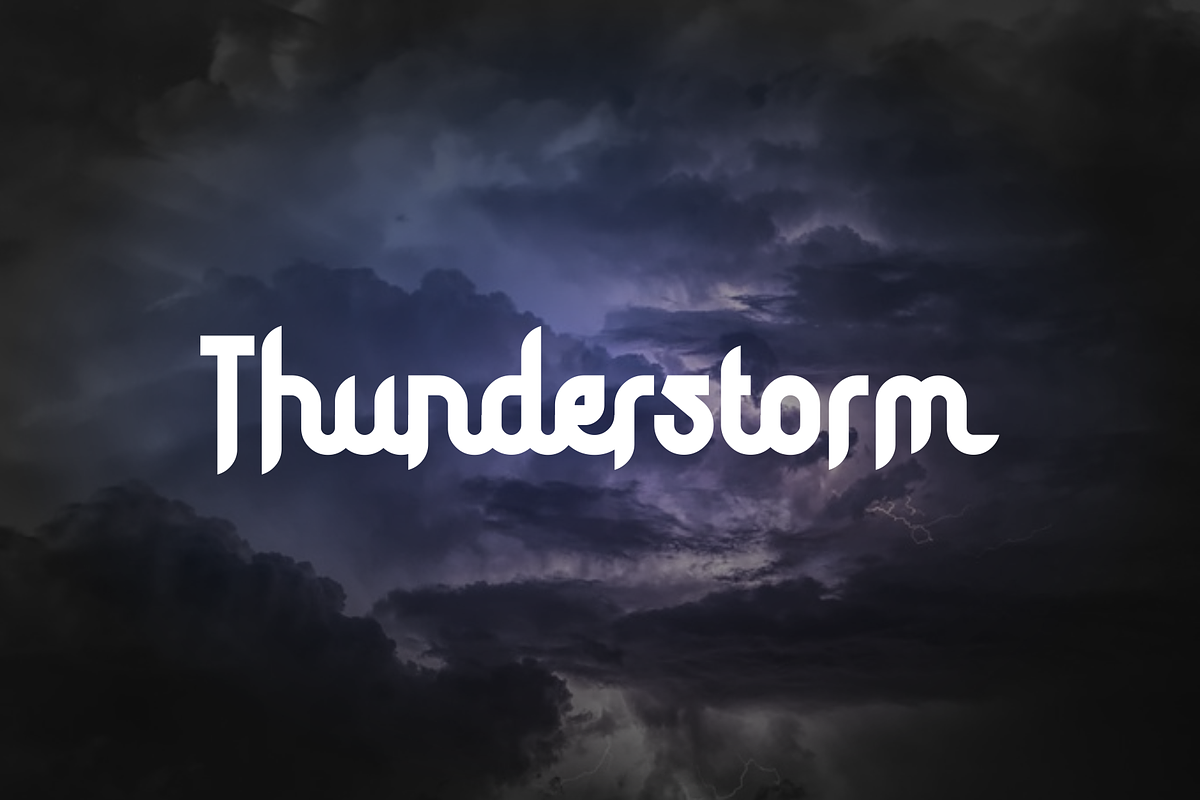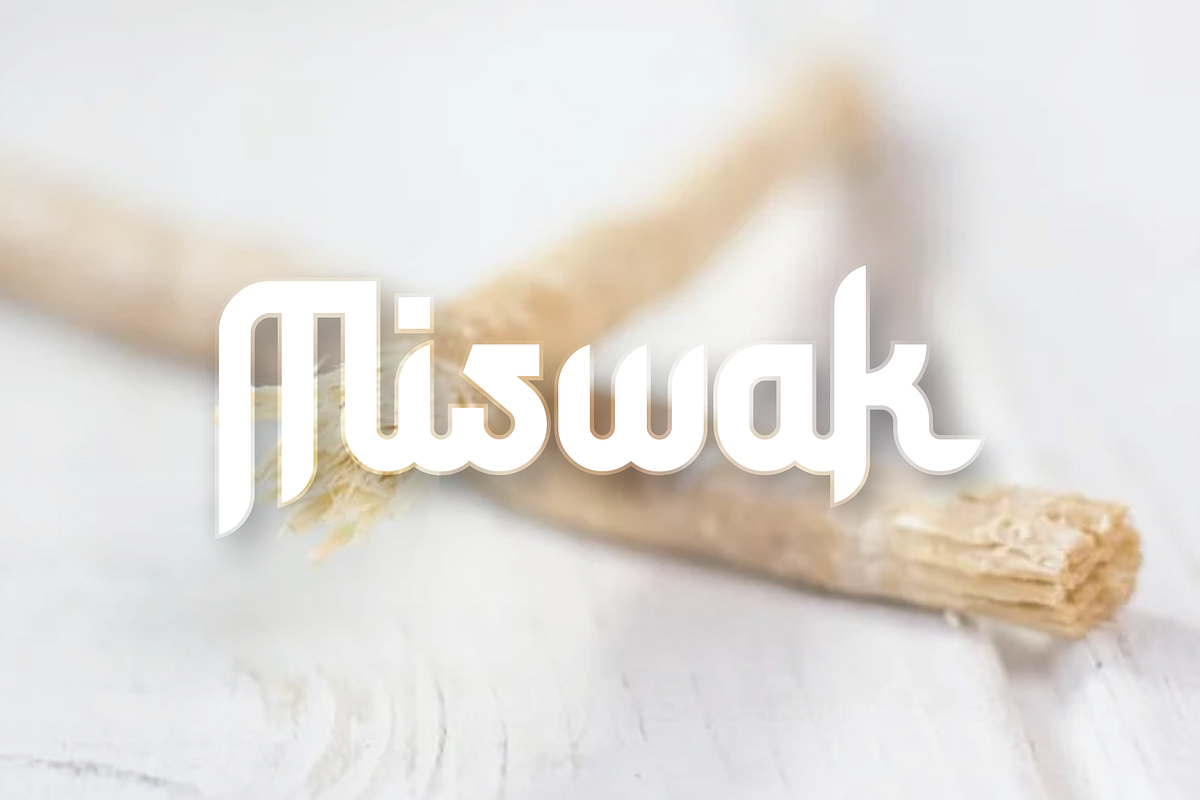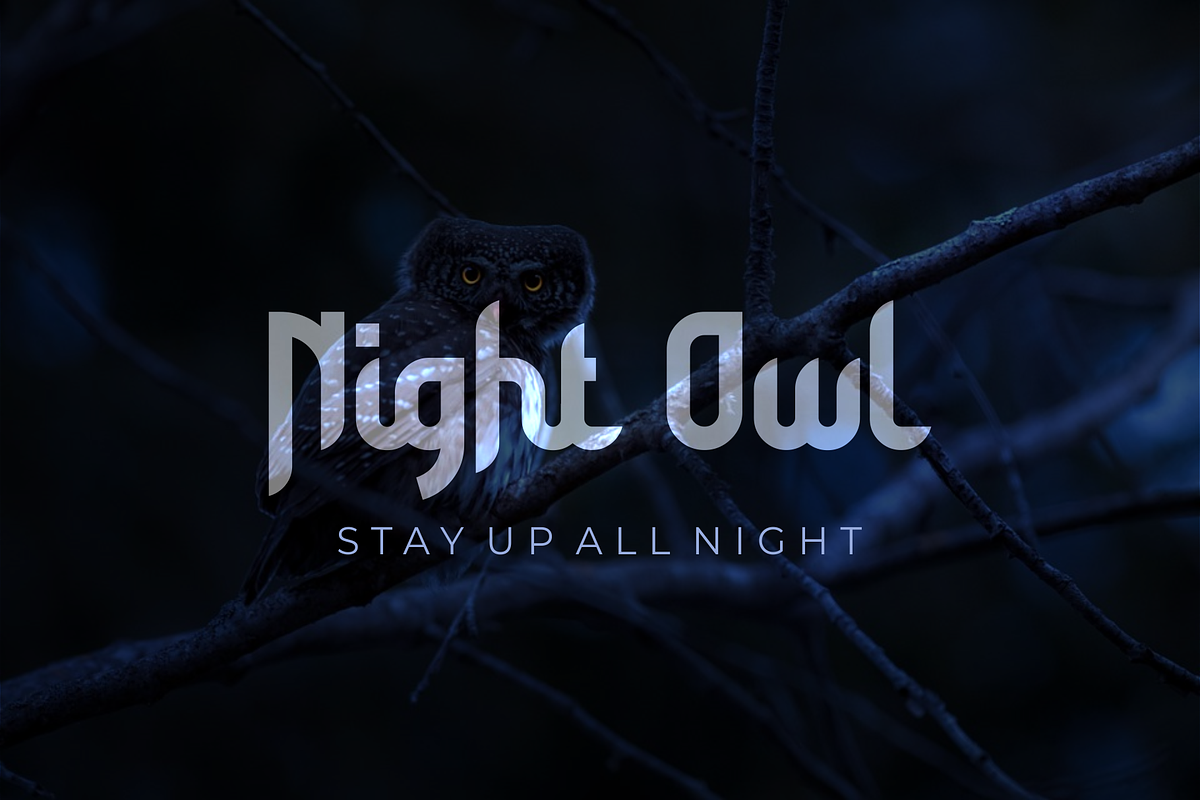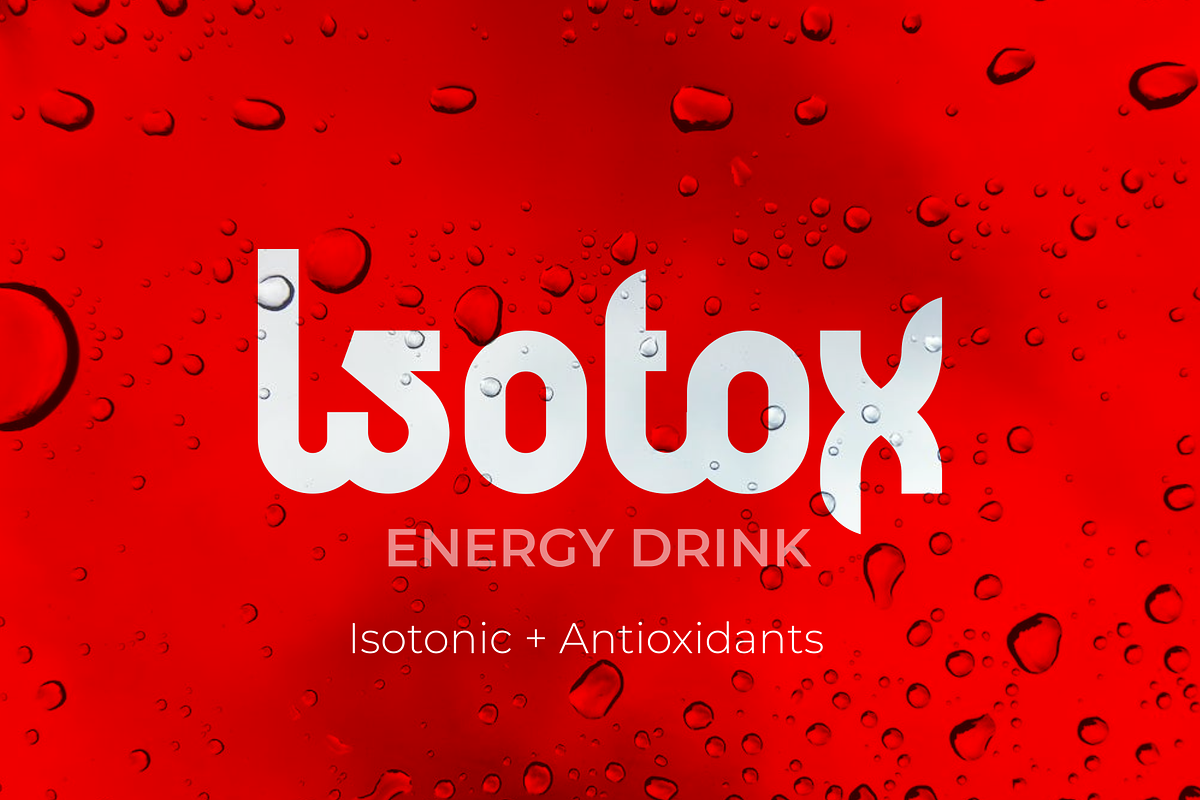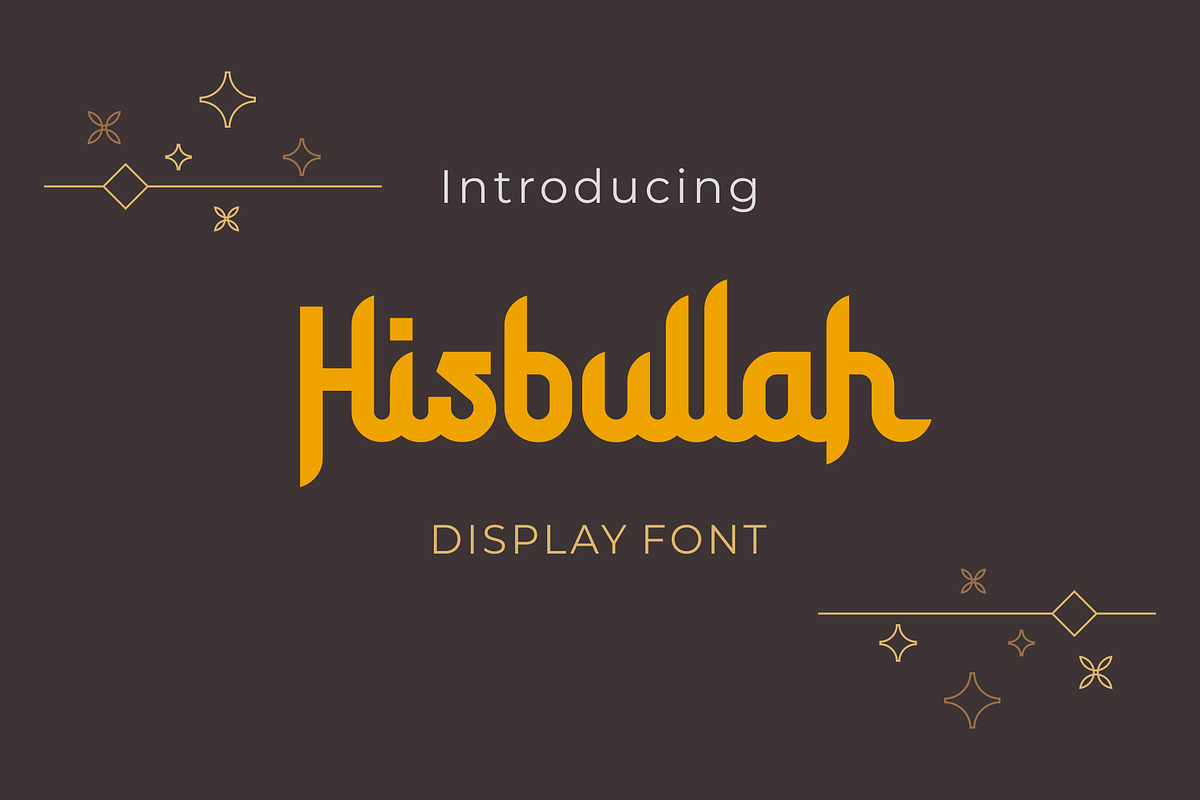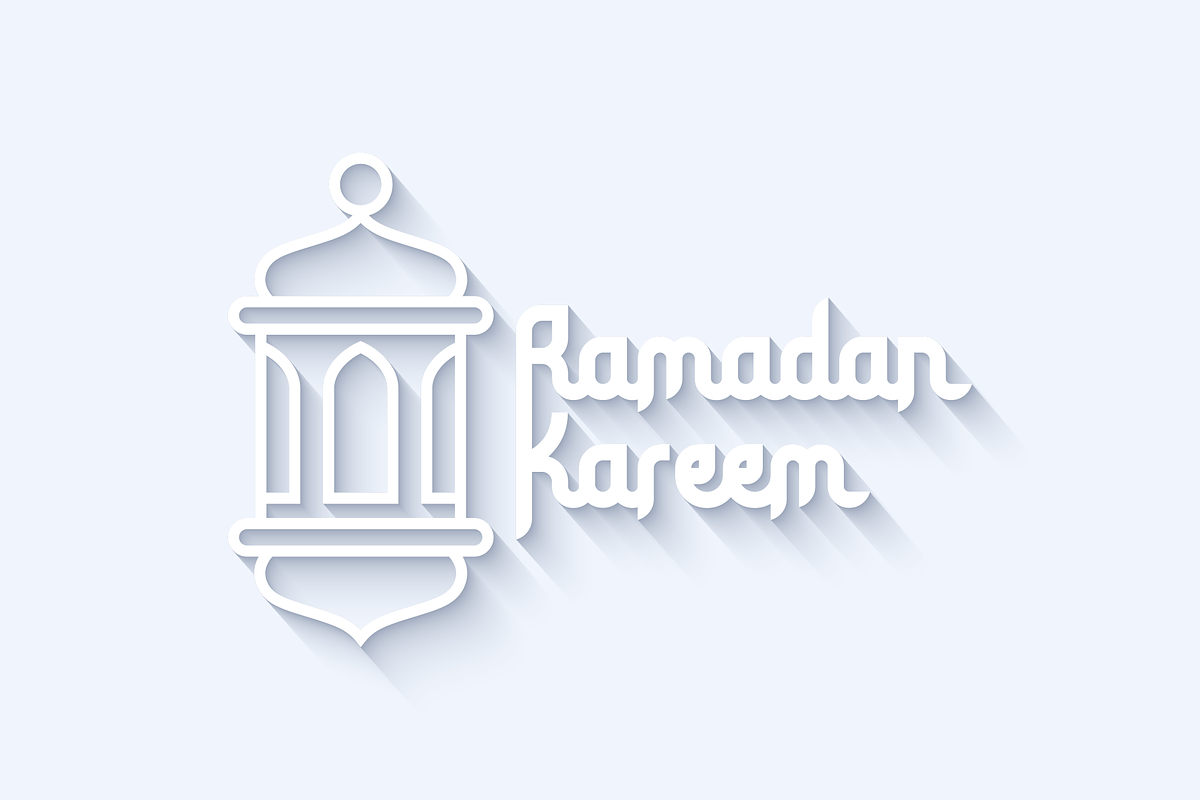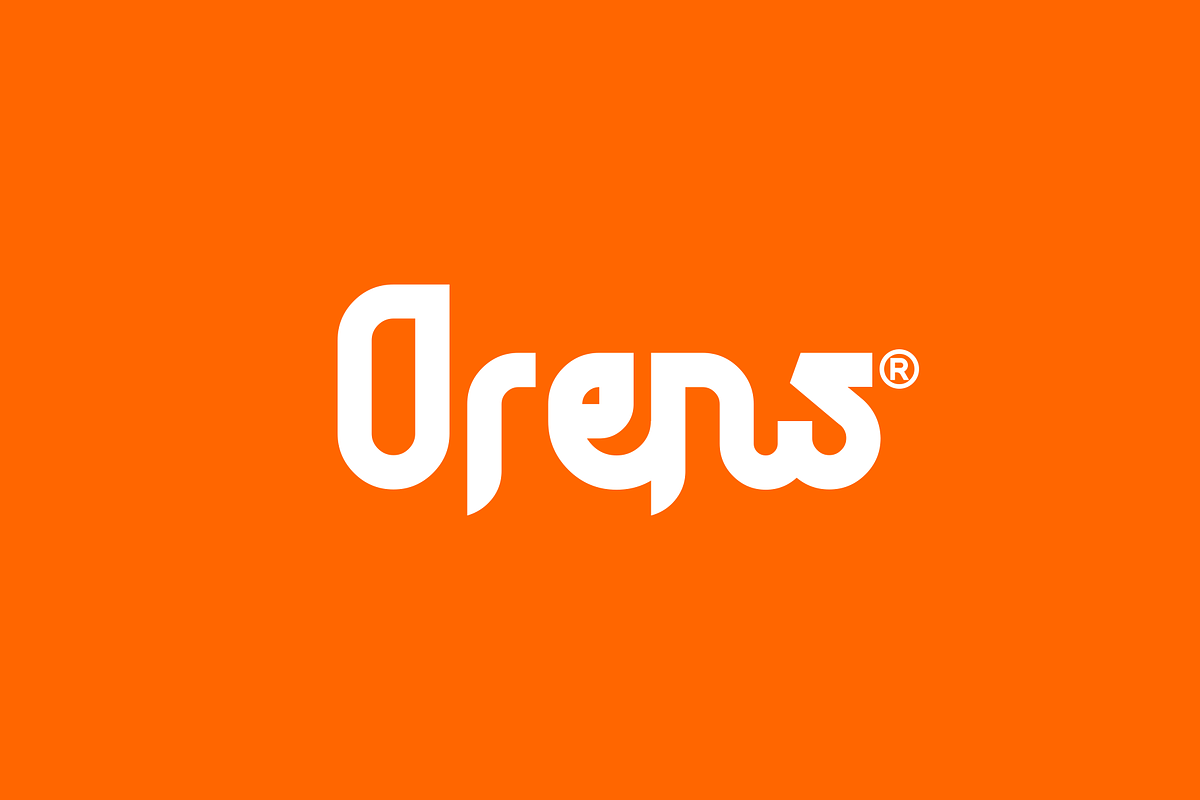
Hisbullah
Hisbullah is a bold, unique and stylish display font with an Arabic look. Designed to give a luxurious and elegant impression by combining modern and classic styles to make it timeless. This font is suitable for any purpose such as industrial, religious, gaming, movie, music themes, and so on